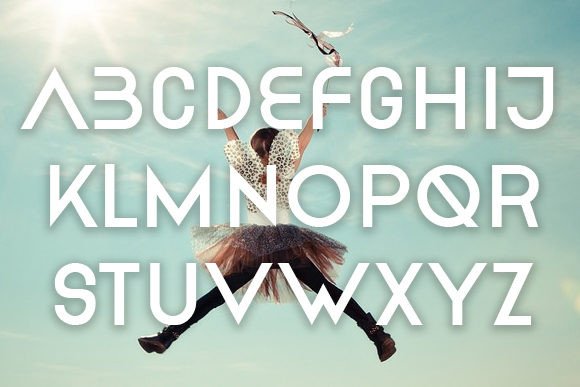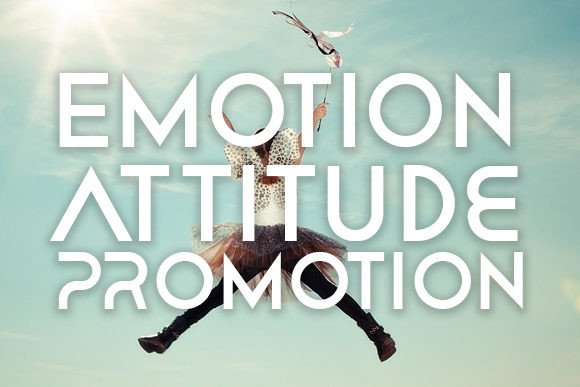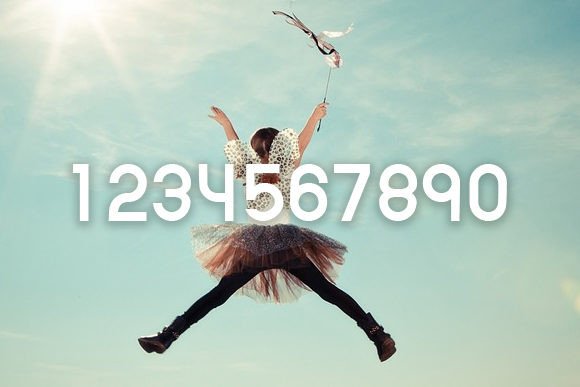
Discover the Versatility of Embodial Font: Elevate Your Designs with this Stunning Typeface
Are you on the hunt for a font that can effortlessly elevate your designs, whether it’s for a banner, shirt, or poster? Look no further than Embodial Font. This fantastic typeface has been making waves in the design community, and for good reason. Its unique blend of style, versatility, and readability makes it an ideal choice for designers and crafters alike.
What Makes Embodial Font So Special?
Embodial Font boasts a distinctive aesthetic that sets it apart from more traditional typefaces. Its letters are carefully crafted to convey a sense of modernity and sophistication, making it perfect for projects that demand a touch of elegance. Whether you’re working on a professional branding campaign or a personal craft project, Embodial Font is sure to make a lasting impression.
Key Features of Embodial Font
- Unique Aesthetic: Embodial Font features a one-of-a-kind design that will add a touch of personality to any project.
- High Readability: Despite its unique style, Embodial Font remains highly readable, even at smaller sizes.
- Versatile: This font is incredibly versatile, making it suitable for a wide range of applications, from digital designs to print materials.
How to Use Embodial Font in Your Designs
One of the best things about Embodial Font is its ease of use. Here are a few ideas to get you started:
- Banners: Make a statement with eye-catching banners that showcase your brand or message.
- Shirts and Apparel: Add a personal touch to your clothing and accessories with custom designs featuring Embodial Font.
- Posters: Create striking posters that grab attention and leave a lasting impression.
- Digital Designs: Use Embodial Font in your digital projects, such as social media graphics, presentations, and more.
Tips for Pairing Embodial Font with Other Design Elements
To get the most out of Embodial Font, consider pairing it with complementary design elements. Here are a few suggestions:
- Contrasting Colors: Use bold, contrasting colors to make your text stand out.
- Simple Backgrounds: Keep your background simple and understated to let Embodial Font take center stage.
- Geometric Shapes: Pair Embodial Font with geometric shapes for a modern, edgy look.